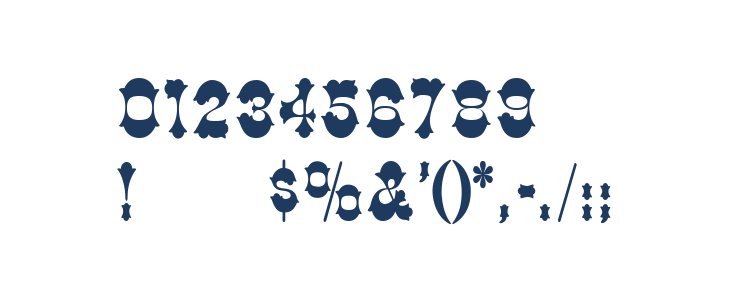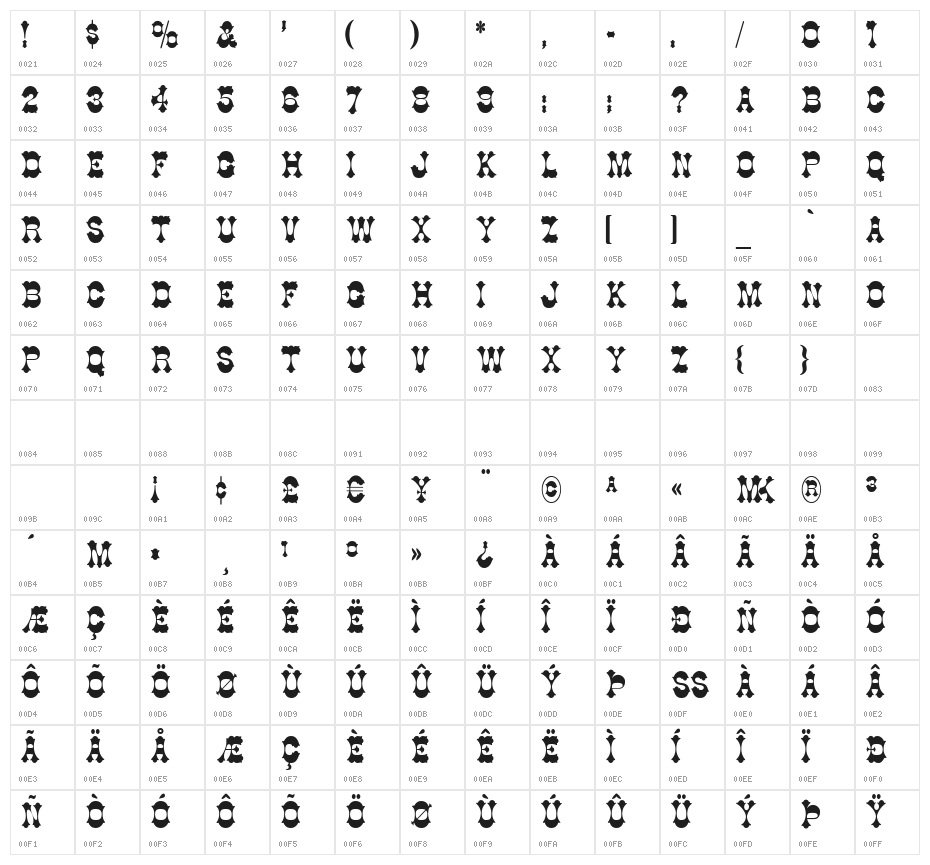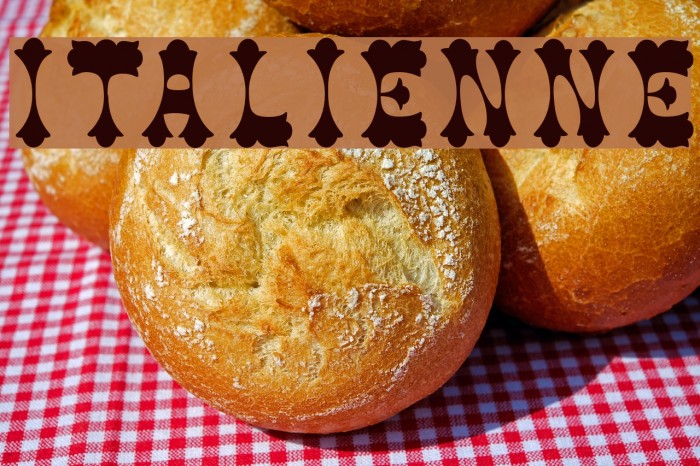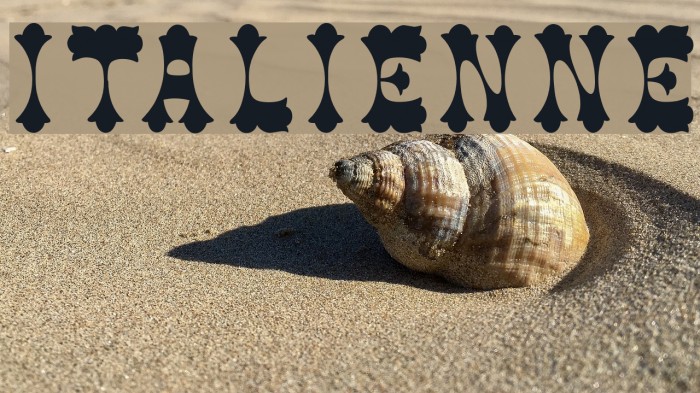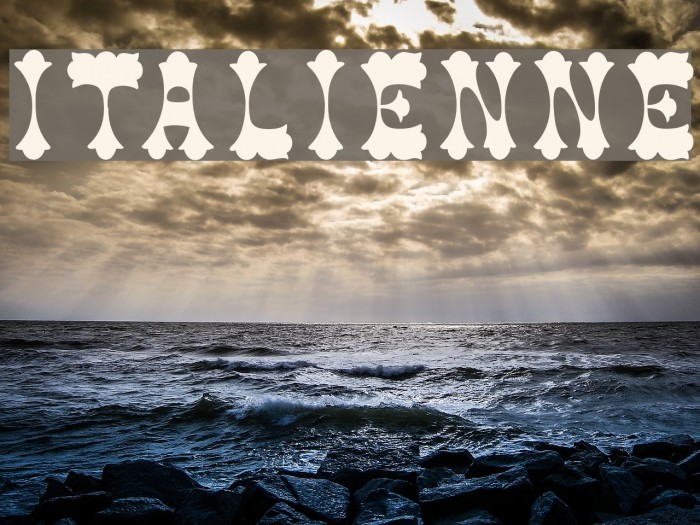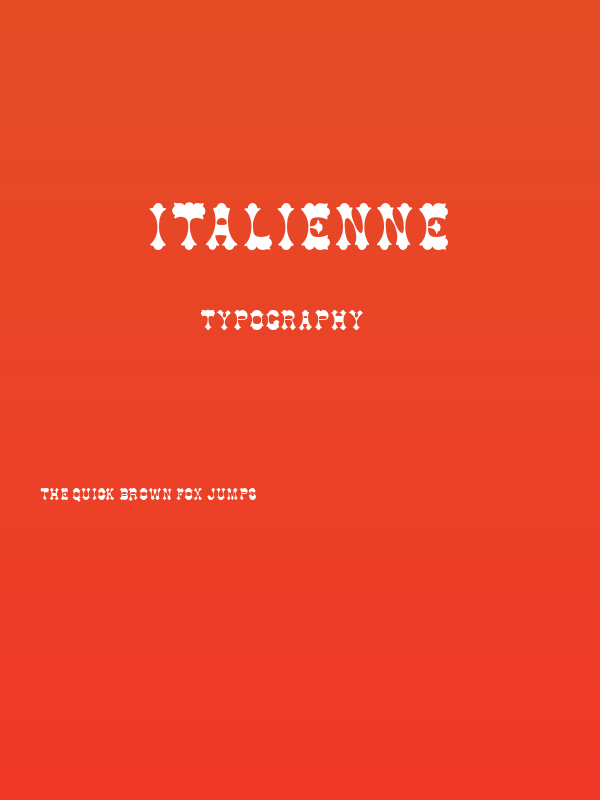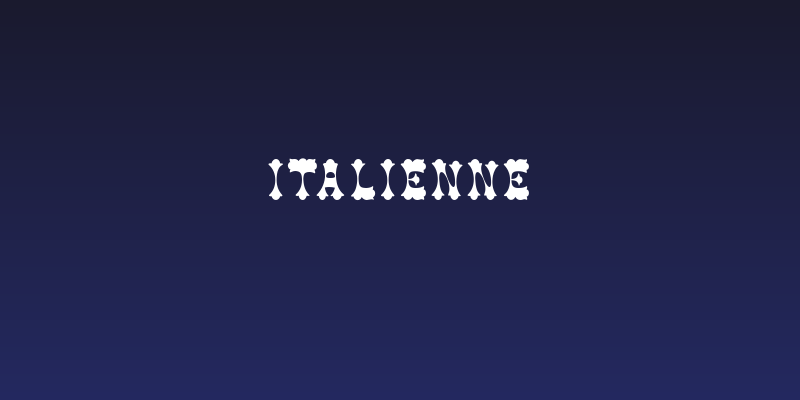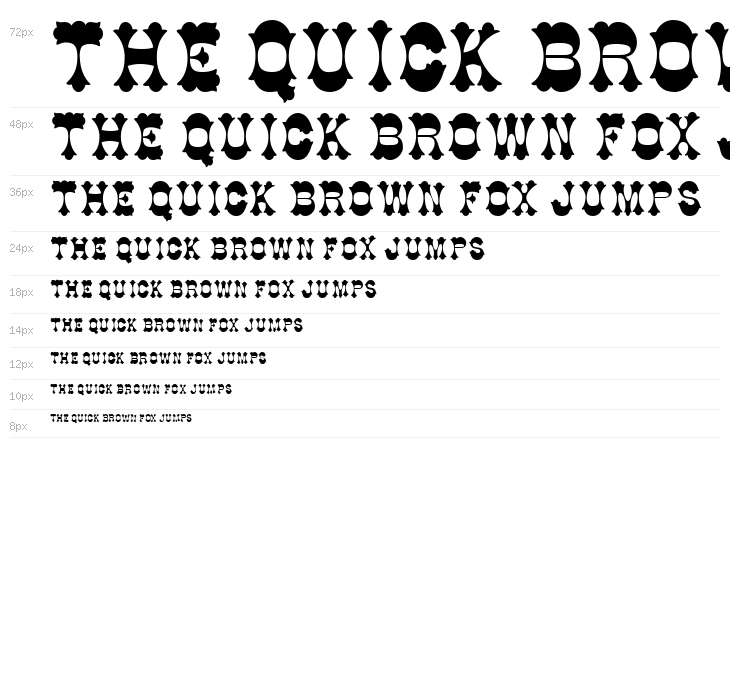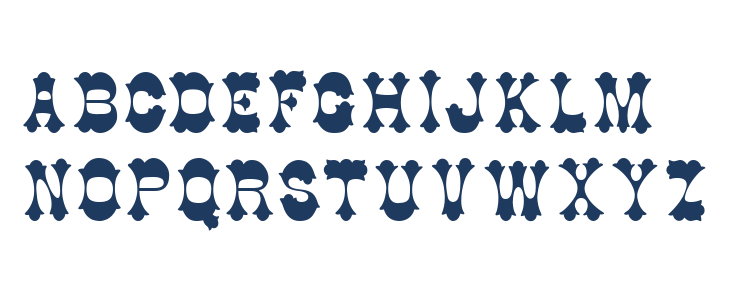
Italienne Font
Italienne Description
This font features a highly decorative and ornate style, characterized by its bold, thick strokes and intricate detailing. The letters are embellished with unique flourishes and curves, giving them a distinct, artistic appearance. The font's design is reminiscent of vintage or baroque styles, with a strong emphasis on visual impact and creativity. Each character is crafted with attention to detail, making it suitable for projects that require a touch of elegance and sophistication. The font's boldness and decorative elements make it stand out, ensuring that any text set in this font will capture attention.
| Proposed Projects | Ideal for use in branding, posters, invitations, and any project requiring a vintage or artistic touch. |